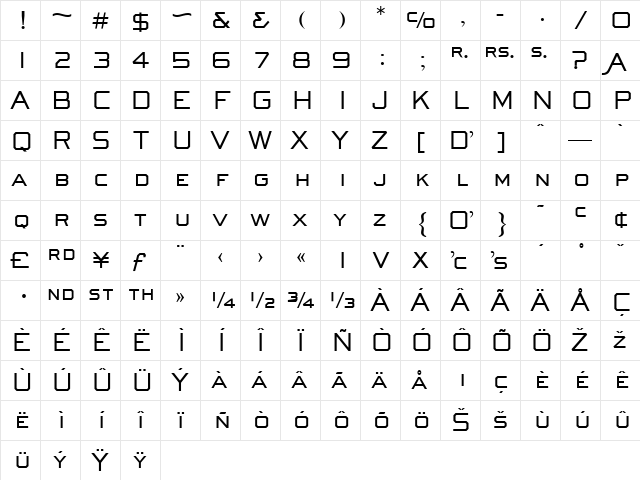
ATSackersGothic Regular
Design Context for ATSackersGothic Typeface
ATSackersGothic has the quiet confidence of well-executed sans-serif typography: versatile, unobtrusive, and dependable at any size.
Font Pairing: Works well alongside a characterful serif or display font that can carry the expressive load while ATSackersGothic handles the functional copy.
Pro Tip: Pair ATSackersGothic with a display or serif font for headlines — its neutral character makes it an excellent supporting player in complex typographic systems.